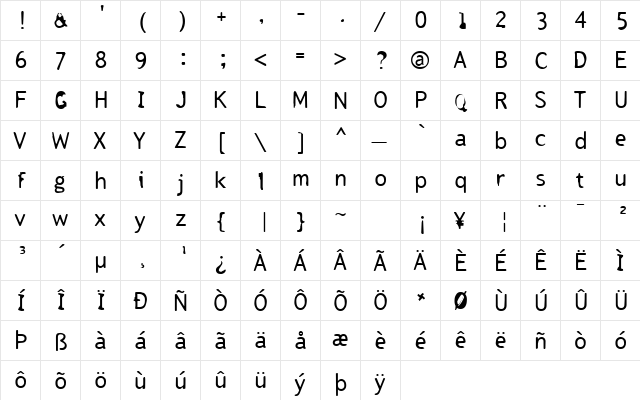
Tjackluder Regular
Design Context for Tjackluder Typeface
Tjackluder offers clean, dependable letterforms without strong stylistic allegiance, making it a practical choice for designers who need flexibility.